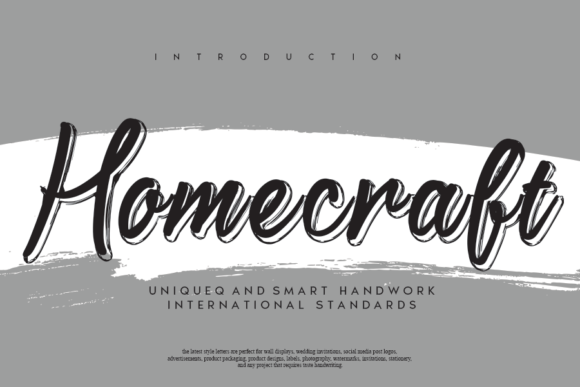
Homecraft Font: Elegant Script for Digital Marketing
Homecraft Flowing Handwritten Font for Social Media Engagement
Homecraft is a flowing handwritten font that serves as a strategic asset for marketers aiming to increase dwell time and interaction on digital platforms. When scrolling through crowded feeds on Instagram, Pinterest, or TikTok, users are conditioned to ignore generic, system-default typography. Homecraft breaks this pattern by introducing a human element that feels personal and authentic. As one of the most versatile script handwritten fonts available for content creation, it bridges the gap between professional polish and organic warmth. This balance is critical for social media managers who need to maintain brand authority while fostering community connection.
The elegant touch described in the Homecraft typeface allows for high-impact visual storytelling without sacrificing legibility. For Reels covers and carousel headers, this font creates an immediate emotional hook. Unlike rigid display fonts, the natural cadence of Homecraft mimics the rhythm of speech, making promotional content feel more like a conversation than an advertisement. Marketers can leverage this distinct style to highlight key value propositions or emotional triggers in their captions and graphics. By integrating Homecraft into your social media templates, you establish a consistent visual voice that audiences begin to recognize and trust over time, directly supporting long-term engagement metrics.
Creating Spectacular Ad Creatives with Homecraft Typeface
Fall in love with its incredibly distinct and timeless style and use it to create spectacular ad creatives that drive higher click-through rates. In paid media, where every pixel counts toward return on ad spend, typography acts as a primary conversion lever. Homecraft functions exceptionally well as a headline font in Facebook and Instagram ads because its flowing structure guides the viewer’s eye across the creative. When paired with a clean sans serif font for body copy, Homecraft establishes a clear visual hierarchy that prioritizes the offer or hook while maintaining readability at small sizes.
Digital advertisers often struggle with making sales announcements feel premium rather than spammy. Homecraft solves this by adding a layer of sophistication to discount codes, limited-time offers, and product launches. The font’s elegant touch suggests quality and care, which can positively influence perceived value before a user even reads the specific details of the promotion. For e-commerce brands, using Homecraft in dynamic product ads or retargeting banners can soften the commercial intent, making the ad blend more naturally into user-generated content environments. This subtle psychological cue helps reduce ad fatigue and improves overall campaign performance by making commercial messaging feel bespoke and intentional.
Homecraft Script Handwritten Style for Brand Identity Consistency
Fonts play a pivotal role in brand recognition, and Homecraft provides a unique signature style that distinguishes lifestyle and boutique brands from competitors. Brand consistency is not just about using the same logo; it is about maintaining a cohesive typographic system across all touchpoints. Homecraft serves as an excellent primary display font for brand identities that rely on warmth, craftsmanship, or personal connection. Its flowing handwritten nature communicates authenticity, making it ideal for personal branding, coaching businesses, artisanal products, and wellness campaigns where trust is the primary currency.
When building a brand kit, marketing teams should position Homecraft as the "voice" font used for emotive headlines, quotes, and signature sign-offs. This creates a predictable visual pattern that reinforces brand recall. For example, a skincare brand might use Homecraft for ingredient highlights and emotional benefit statements, while reserving a neutral serif font for scientific claims and regulatory text. This strategic separation ensures that the brand feels both professional and approachable. Furthermore, because Homecraft possesses a timeless style, it avoids the trap of trendy typography that dates your brand assets within months. Investing in this font supports sustainable brand building, reducing the need for frequent visual refreshes and ensuring your marketing materials remain relevant across seasons and campaigns.
Optimizing YouTube Thumbnails and Video Covers with Homecraft
Homecraft is perfect for your favorite projects involving video content, specifically when designing thumbnails that must remain legible on mobile devices. YouTube thumbnails and podcast cover art operate under extreme constraints; text must be readable at a fraction of its original size. The flowing structure of Homecraft, combined with its distinct character shapes, maintains integrity even when scaled down. Unlike overly ornate scripts that turn into illegible blobs at low resolutions, Homecraft retains its elegant touch and clarity. This makes it a superior choice for creators who need to convey emotion and topic relevance instantly in a crowded sidebar or recommendation feed.
Content creators can use Homecraft to emphasize keywords in titles without resorting to aggressive, all-caps block letters that can signal clickbait. A thumbnail featuring "5 Morning Rituals" in Homecraft feels inviting and aspirational, whereas the same text in a heavy impact font might feel demanding or sensationalist. For vloggers, educators, and lifestyle influencers, this font aligns visually with the personal nature of video content. It signals to the algorithm and the audience that the content is curated and thoughtful. Additionally, when creating end screens or lower-thirds for video editing, Homecraft adds a polished, custom-graphic aesthetic that elevates production value without requiring expensive motion design services.
Strategic Font Pairing and Readability for Digital Campaigns
Script handwritten fonts like Homecraft require careful pairing to ensure marketing messages remain accessible and effective across diverse digital channels. While Homecraft shines as a display typeface, it should rarely be used for long-form body copy or dense informational text. To maximize readability and user experience, pair Homecraft with a geometric sans serif or a highly legible serif font. The contrast between the fluid, organic lines of Homecraft and the structured stability of a companion font creates a dynamic tension that keeps layouts engaging. This combination is essential for landing pages, email newsletters, and blog graphics where information retention is as important as aesthetic appeal.